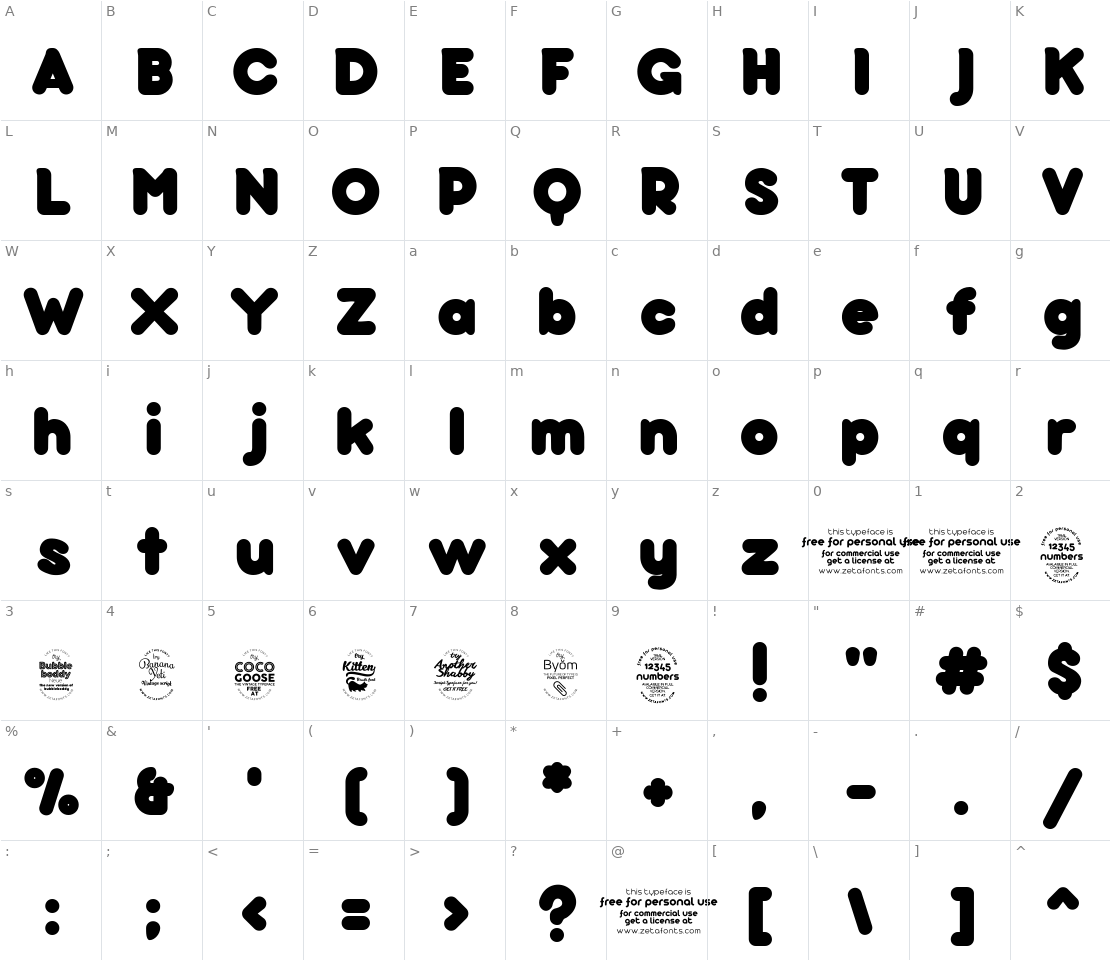
Bubbleboddy
Bubbleboddy is a heavy, rounded sans-serif from Zetafonts with soft, inflated letterforms that feel immediately warm and approachable. The black weight gives it real visual punch despite the friendly curves, so it holds up well in headlines, packaging, and children's branding where you need something bold but never aggressive.